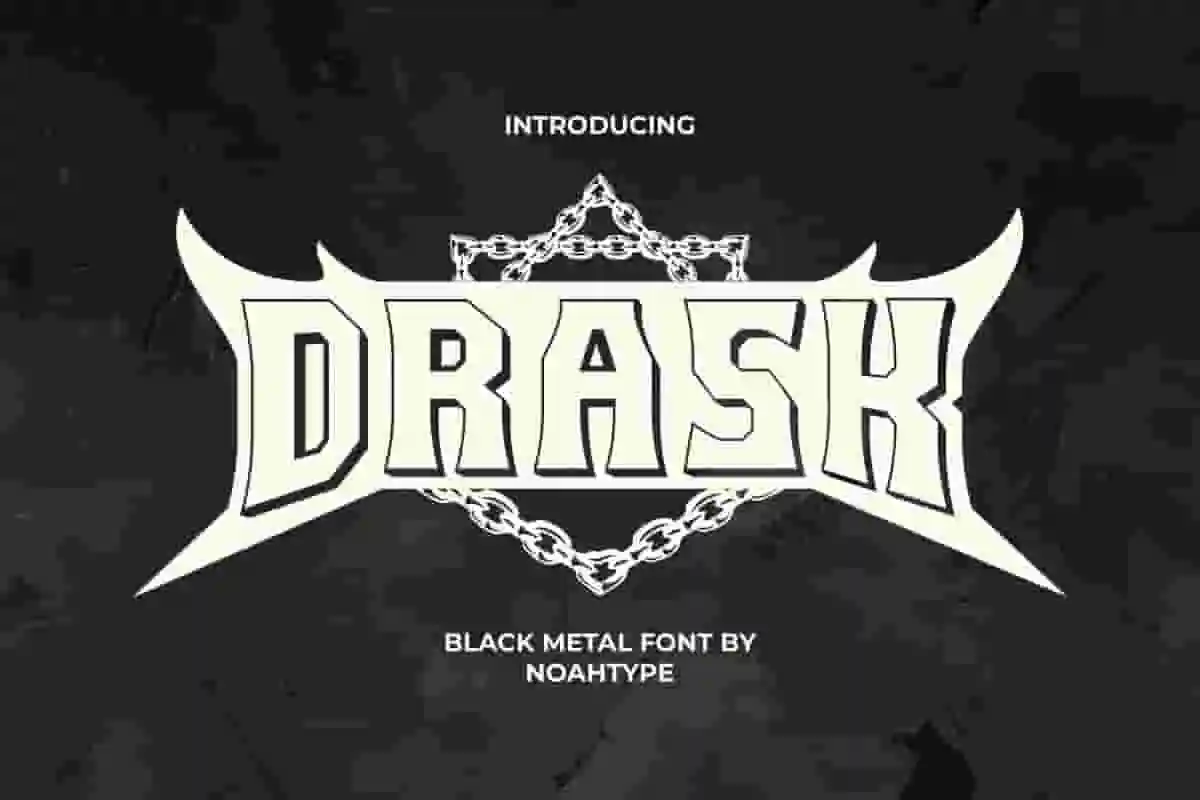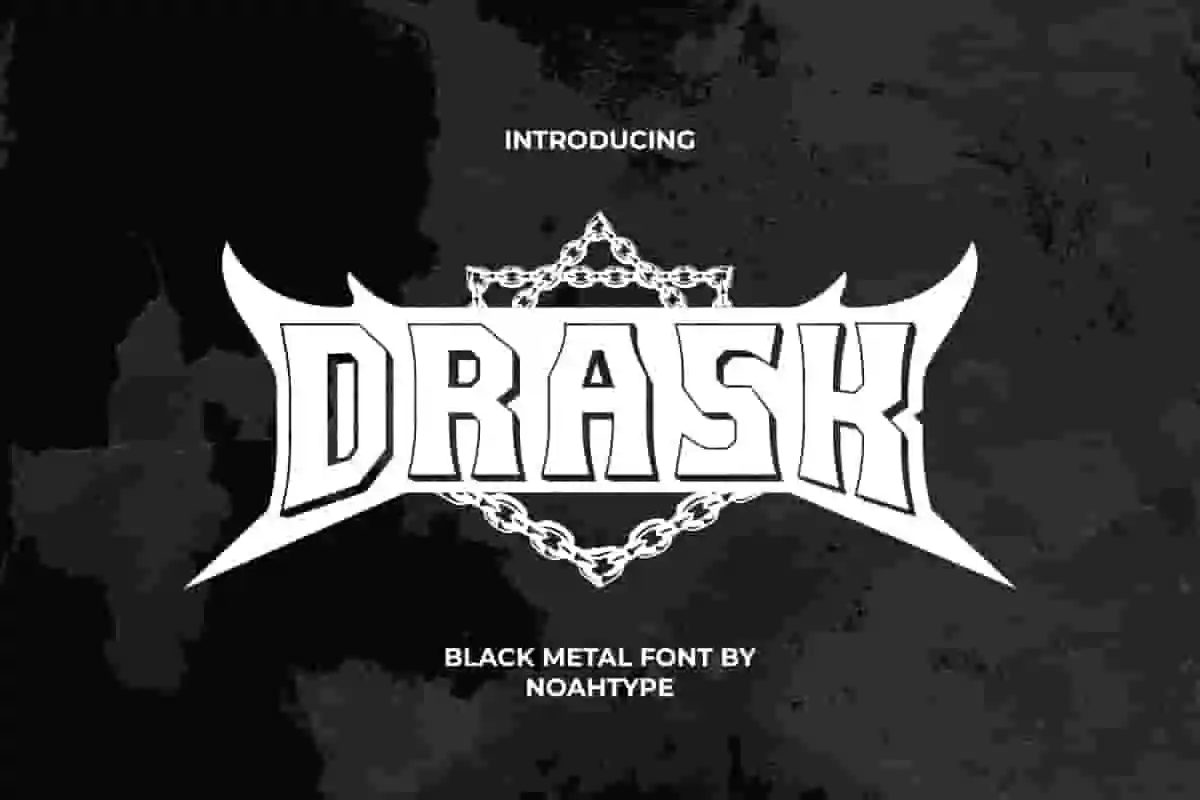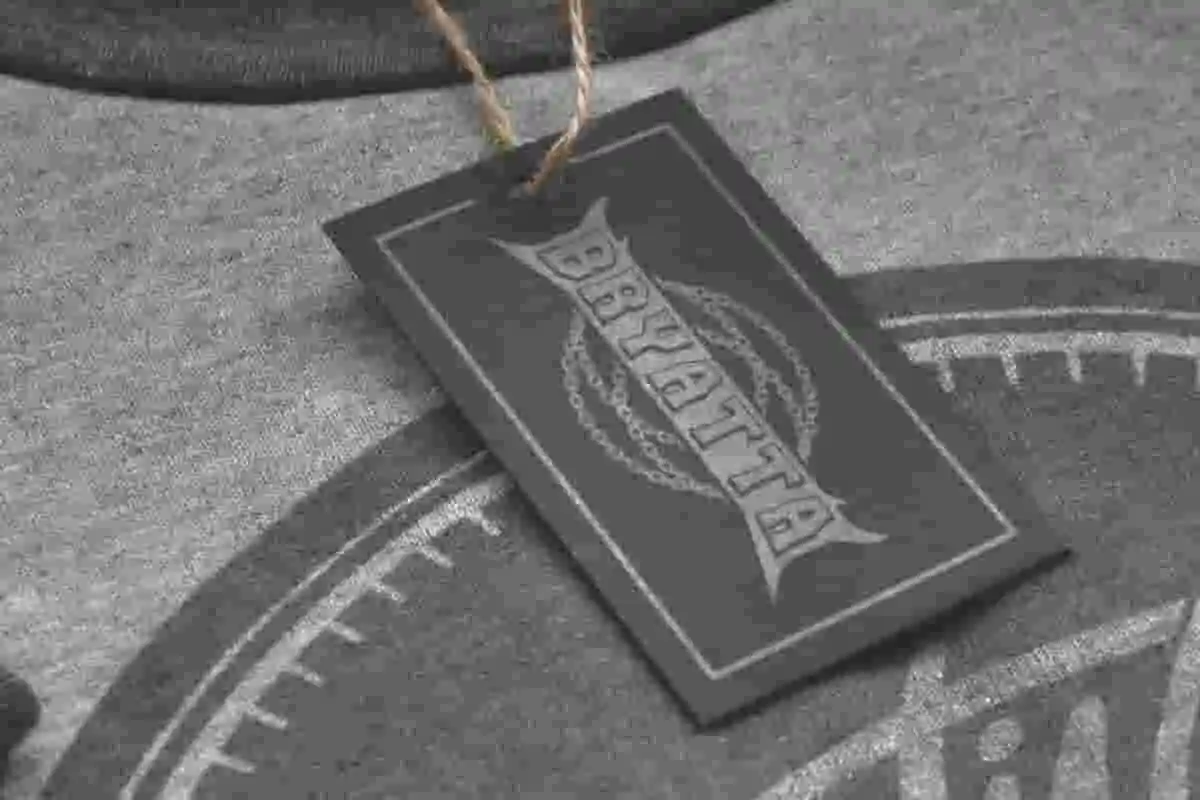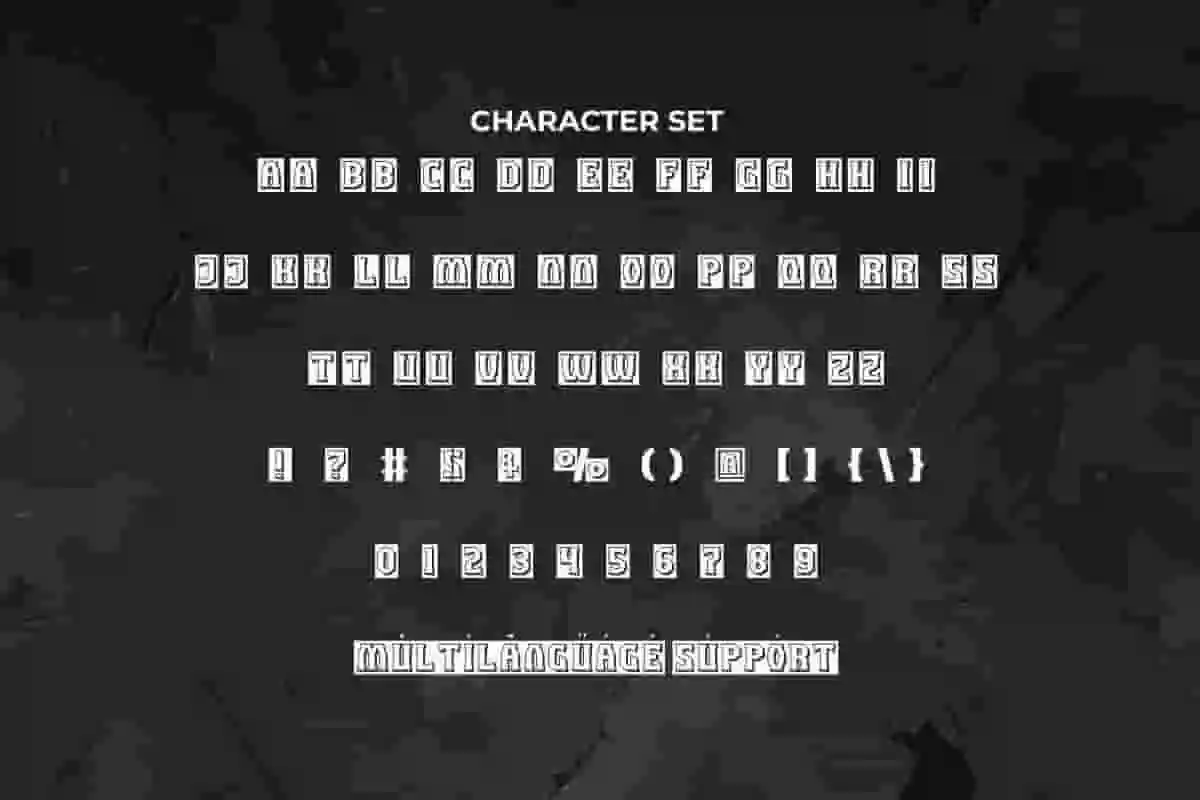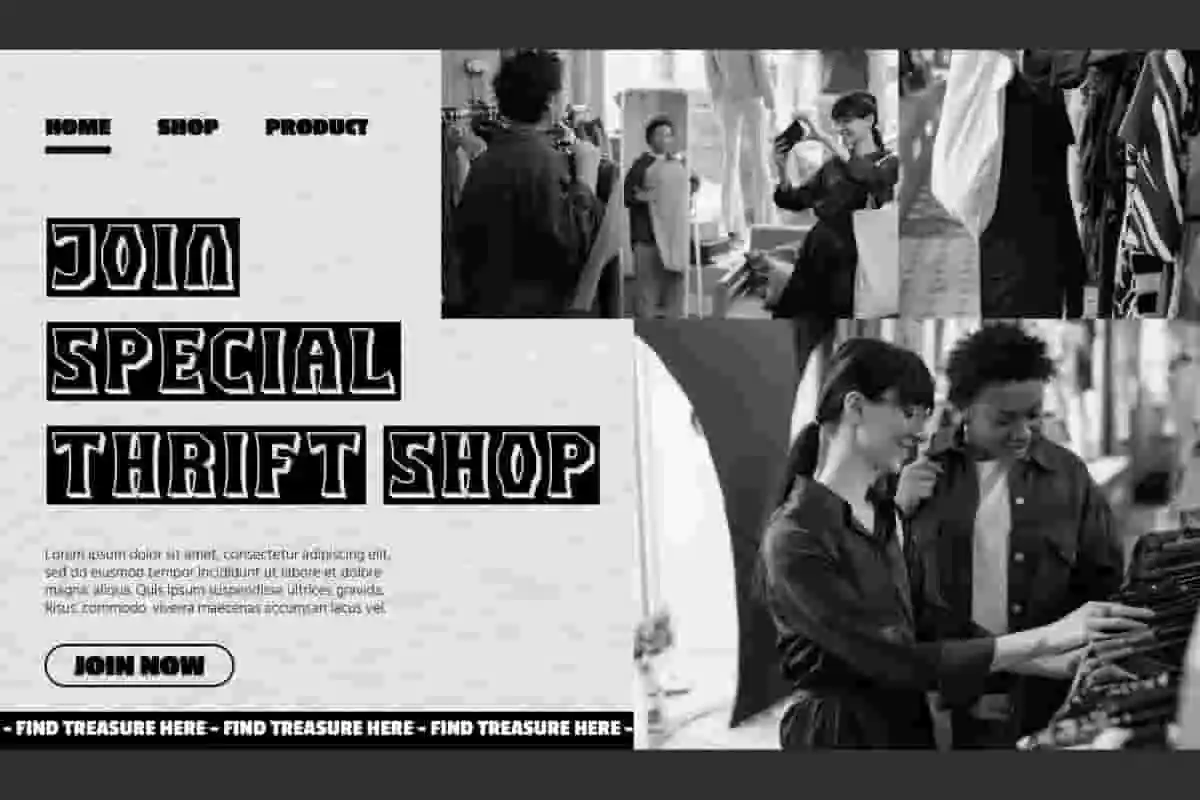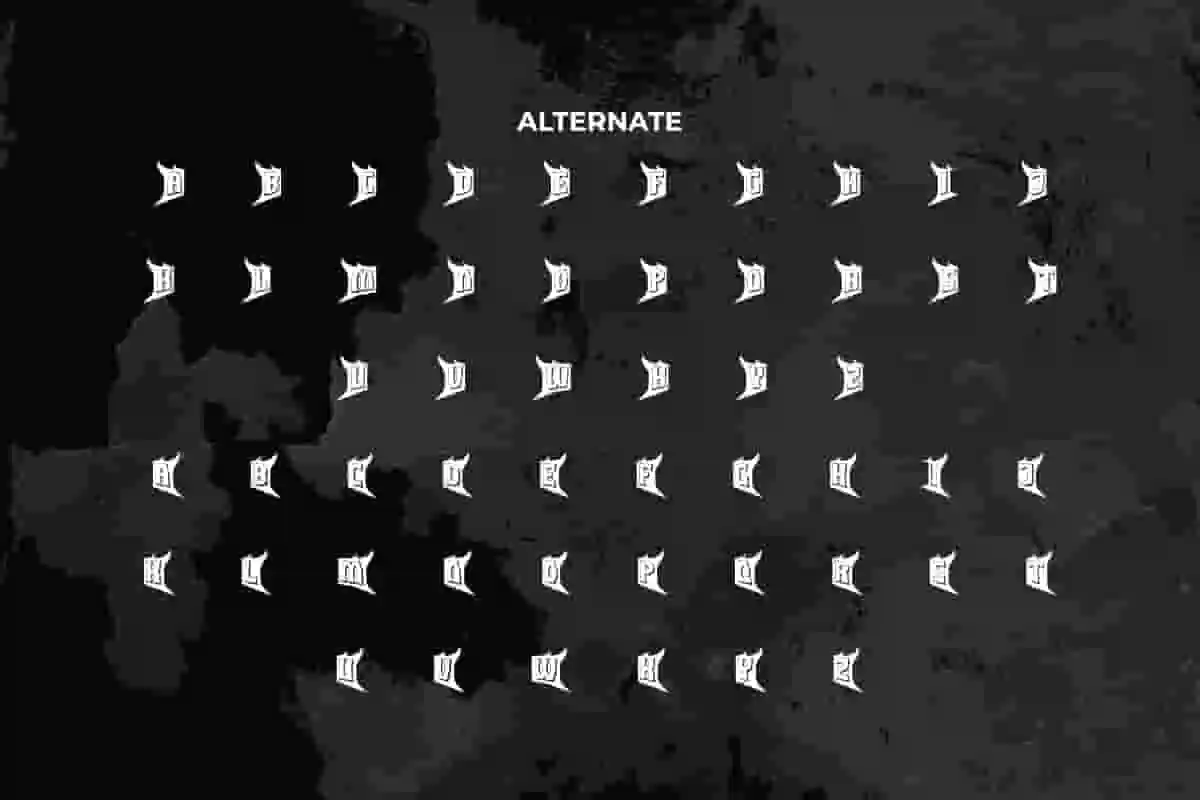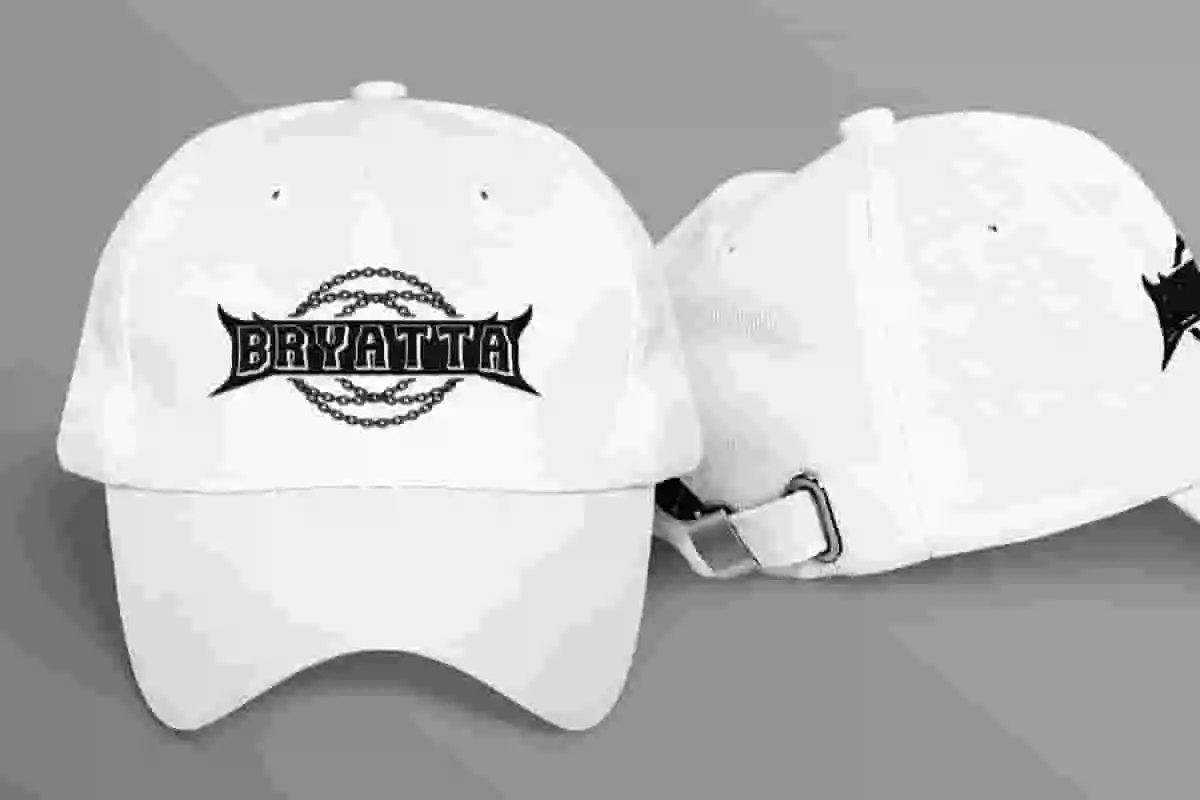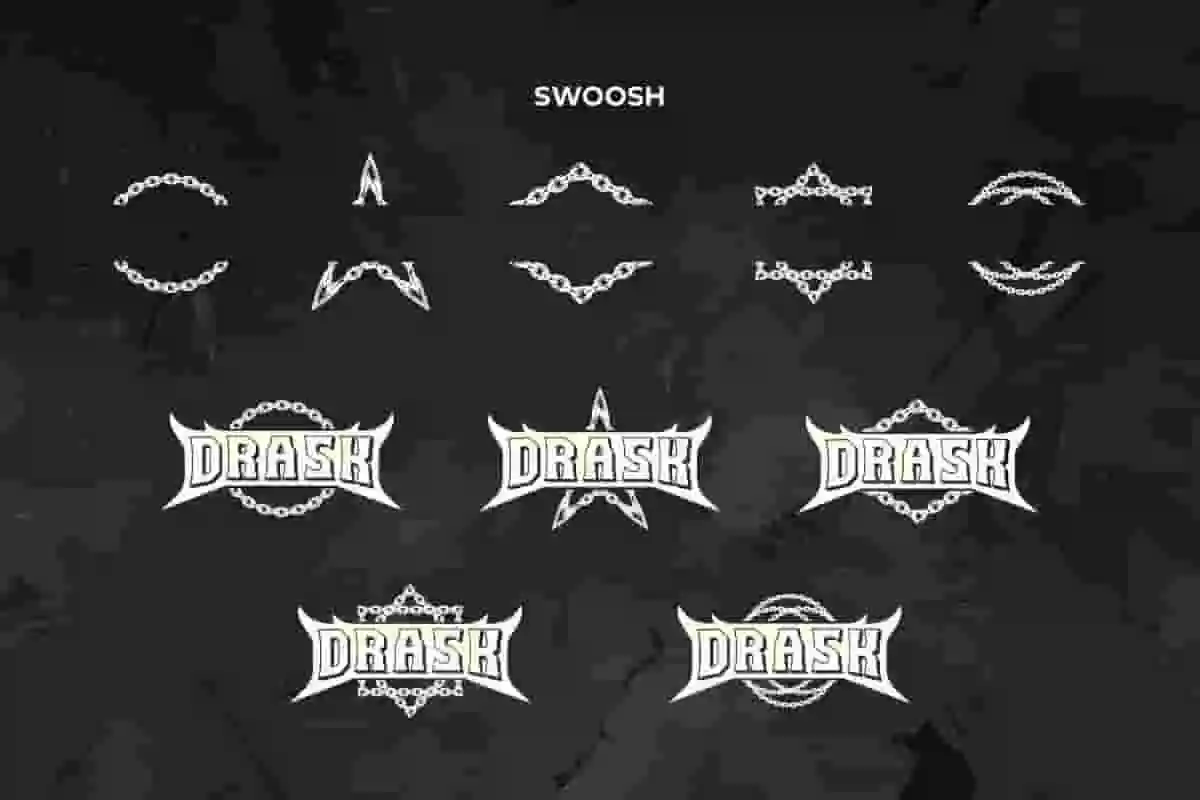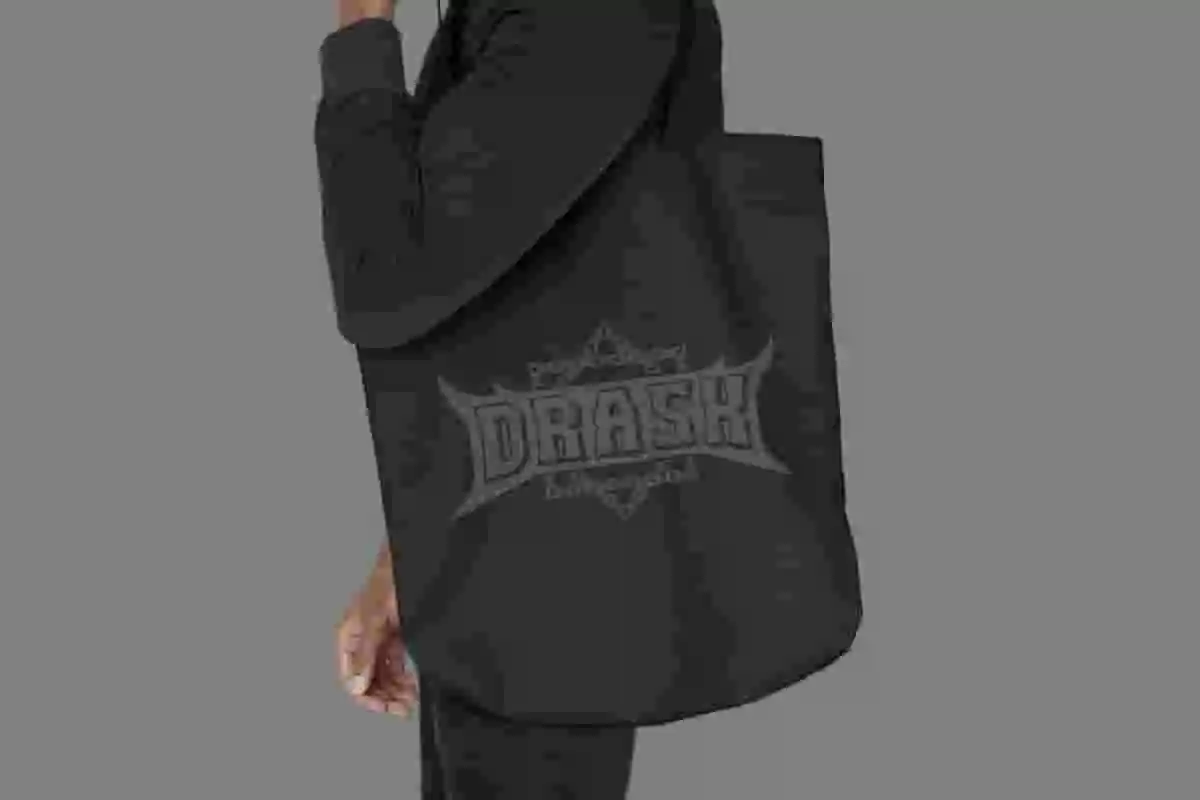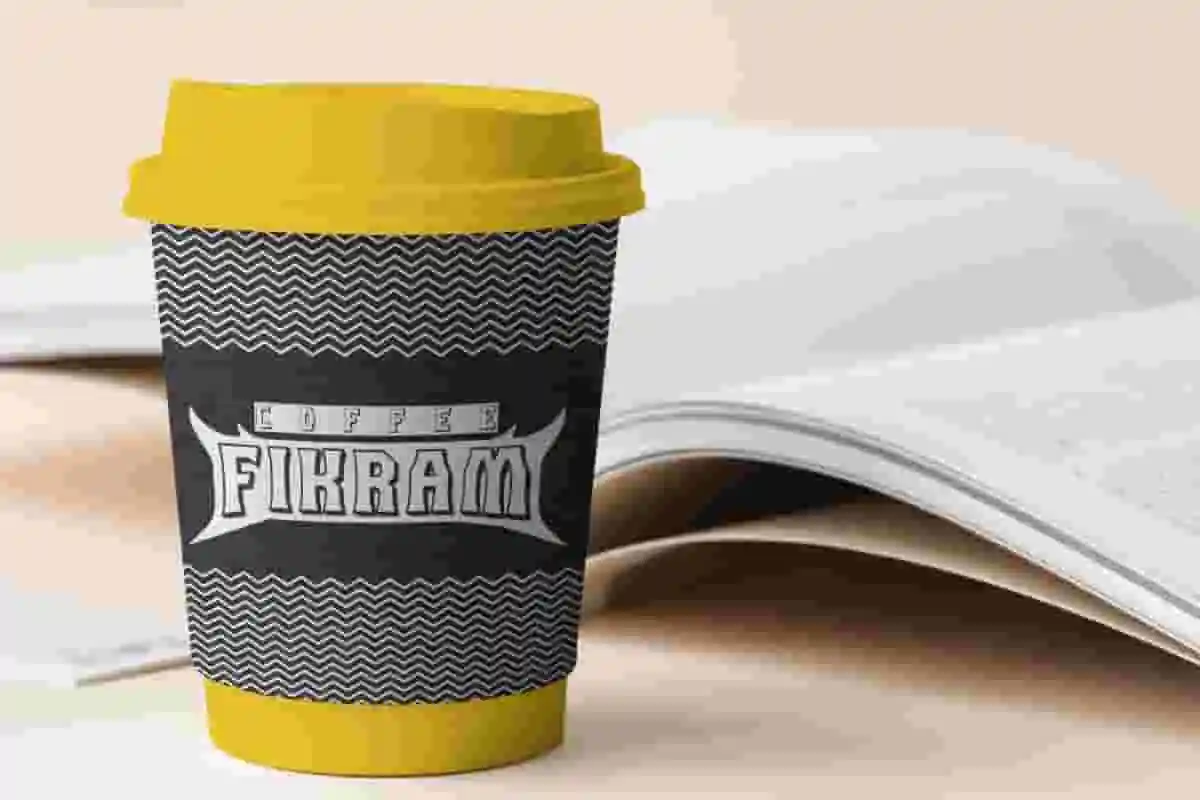
Drask Font is a Dracula vampire mysterious horror but fun decorative black metal band font by NoahType. This font is made with enough detail that it has many elements that make it perfect for automotive type concepts. It will be perfect for any designs, such as custom design, brand image, poster, label, invitation, cover, marketing material, menu, printing, product packaging, quotes, signage, website, and many more!
Drask Font includes full set of ALL CAPS for Uppercase and Lowercase Basic Characters, Numerals, Punctuation, Symbol, and Swoosh character. This cool font will make your design amazing and also a perfect choice for many industries, such as game, movie, music, accessories, advertising, art, café, event or festival, fashion, printing, publishing, etc.